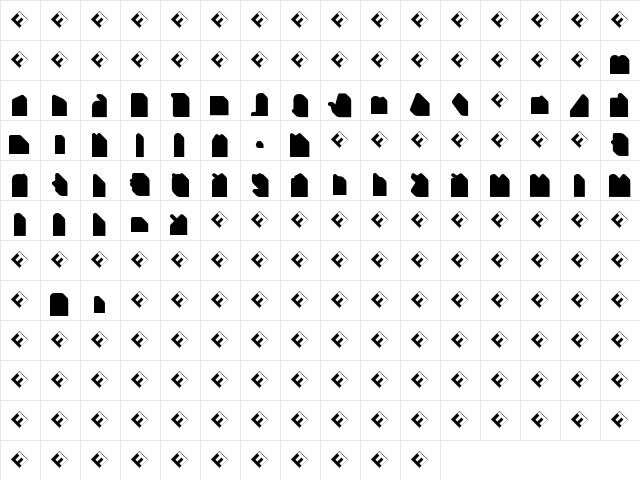
Jigger-RoundedBackExp Regular
| Foundry | Steffen Sauerteig, published by Fontshop International for the FontFont library |
Design Context for Jigger-RoundedBackExp Typeface
Jigger-RoundedBackExp uses gentle rounded endings to create a warm, inviting typographic personality — less corporate than geometric sans, more refined than playful display fonts.
A natural fit for tech startups, health and wellness brands, children's products, and friendly consumer apps.
Font Pairing: Pairs well with a rounded or humanist sans for body copy, maintaining the friendly tone without relying on Jigger-RoundedBackExp to carry extended reading.
Pro Tip: Pair Jigger-RoundedBackExp with a geometric sans for a balanced system — the rounded softness works as a warm counterpoint to harder-edged companions.